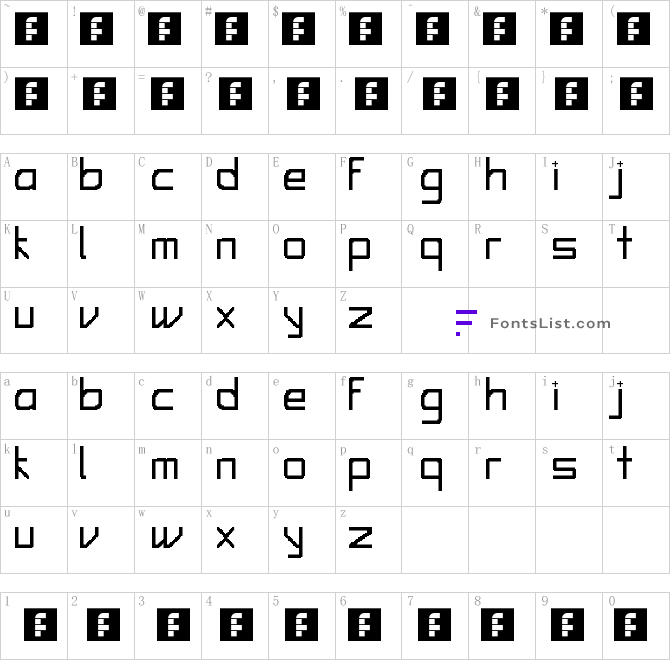
- Font Name:Alfie Ferdinand
Alfie-Ferdinand-Regular.ttf is a very beautiful artistic font, Alfie-Ferdinand-Regular.ttf is widely used in the design and printing of various books and pictures,Alfie-Ferdinand-Regular.ttf has a strong visual impact,Alfie-Ferdinand-Regular.ttf is a commonly used font in newspapers, magazines and books, and is used in posters, e-commerce Poster design, store design, logo design, font design and other fields.Alfie-Ferdinand-Regular.